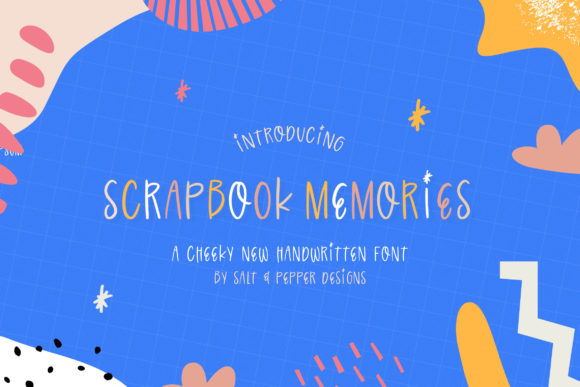
Step into the enchanting world of Scrapbook Memories Font, where nostalgia and creativity intertwine to create a visual masterpiece. This display font, crafted with meticulous care by Salt and Pepper Fonts, captures the essence of handwritten memoirs, evoking a sense of warmth and familiarity.
Unleash your artistic spirit and let your imagination soar as you explore the boundless possibilities of Scrapbook Memories. Its playful and endearing style lends itself effortlessly to a multitude of design projects, from heartwarming invitations to whimsical posters. Picture your words dancing across the page, each letter a delicate brushstroke that tells a story.
Embrace the charm of Scrapbook Memories and watch your designs come alive with a touch of whimsy. Its natural and unique style effortlessly complements vintage-inspired creations, adding a touch of timeless elegance to your work. Transport your audience to a simpler time, where memories were cherished and stories were shared through heartfelt letters and handcrafted keepsakes.
With Scrapbook Memories Font as your creative companion, you'll discover a world where imagination knows no bounds. Its versatility shines through whether you're crafting personalized greeting cards, designing eye-catching social media posts, or adding a touch of charm to your website. Let your creativity flourish and let Scrapbook Memories be your guiding light.
Join the countless designers and artists who have fallen in love with the magic of Scrapbook Memories Font. Its user-friendly design ensures a seamless experience, allowing you to focus on what truly matters - bringing your creative visions to life. Dive into the world of Scrapbook Memories and let your imagination run wild.